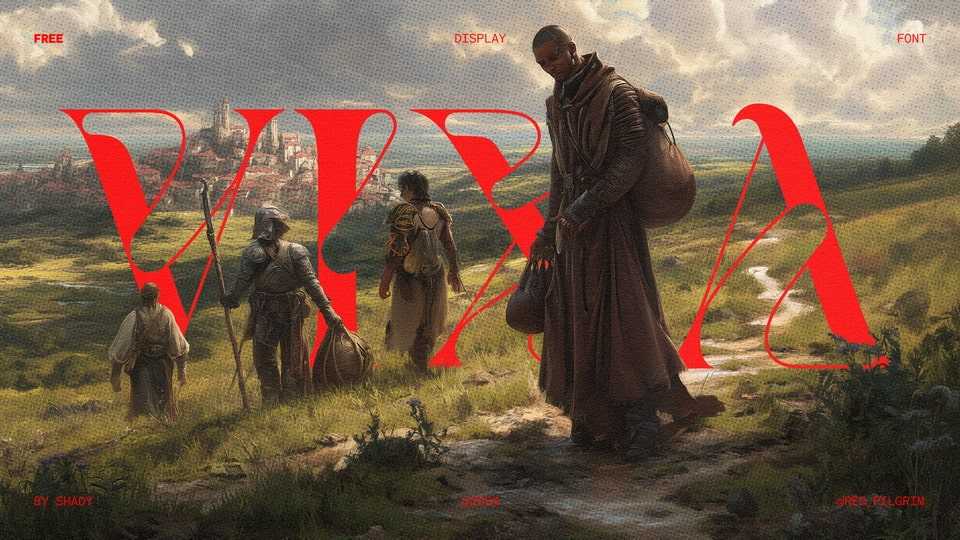
Download Vixa font, a display typeface created as an experiment in mixing contrast, elegance, and something a bit… strange. It blends inspiration from Art Nouveau, Art Deco, and a bunch of fantasy/creature-like aesthetics.
Designer: Shady Red Pilgrim